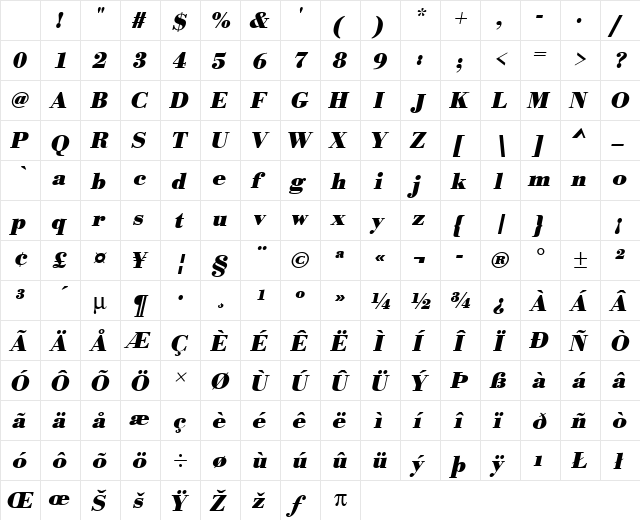
Complete URWBodoniT Bold Oblique glyph index. Displaying only characters natively supported by URWBodoniT Bold Oblique font.
URWBodoniT is a composed and adaptable typeface that performs quietly and consistently across a wide range of design contexts. The slanted form adds forward momentum and visual energy. Its bold stroke weight gives it real presence on the page.